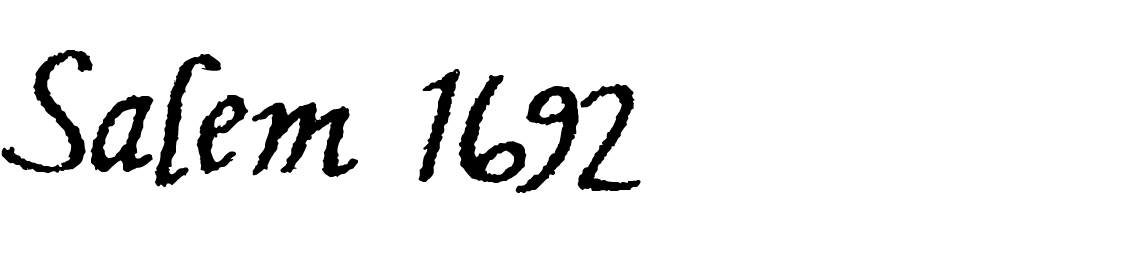
Ludicrously elongated ascenders characterize this font, taken from an eighth century parchment. One wonders what things may have been written down in this hand. While clearly legible, this font is best used as a headline or accent face.Astaroth WF View Character Set Try it!
Parallel to the development of book hands, the chancellories and scriptoria of France developed a handwriting that was easy to write and well adapted to the needs of a growing world trade.
The best features of several handwriting styles were combined, the resulting mix was known as Bastarda. Together with the printed Gothic Textura, it formed the basis of the later German Fraktur typefaces.Bastarda WF View Character Set Try it!
Illuminated manuscripts of the 10th century furnished this odd set of capitals, which appear to be bizarre ink blotches more than anything else. Yet this was someone’s artful handwriting a thousand years ago. We recommend this font for headlines.Batwynge WF View Character Set Try it!
Here we have a gnarled and twisted hand that was used on an actual spell, which which was found tucked under the beams of a 16th century house in southern Germany. The incantation was wrapped around a fossil belemnite (also known as a “thunderbolt”) Evidently this protected the house from getting hit by lightning. There are brown stains on the ancient parchment, which could be blood.Gnomos WF View Character Set Try it!
One of the famous monastic hands of France, we have seen several documents that bear tight lines of this beautiful, regular but strangely illegible writing. This is a good text face, although it certainly takes some getting used to.Luxeuil WF View Character Set Try it!
What other font conveys the notion of “Capital” letters better than this – it is clearly one of the most beautiful fonts we have seen. Originally this ceremonial hand was used on official documents.Orgeuil WF View Character Set Try it!
Runic writing was not an everyday affair, it was reserved for sacred or otherwise important purposes, and its practitioners were most likely learned or holy men. Because each rune has not only a sound value, but also a name (such as “aurochs” “hail” and “god”), a runic message can bear a double meaning, which makes the deciphering of runic inscriptions more of an interpretation than a translation.Runor WF View Character Set Try it!
While in Europe the witch craze was already dying down, in Salem, Massachusetts it just got started. Based on “spectral evidence” and hearsay, 19 people were convicted and executed as witches. When the fanatic prosecutors finally accused the wife of the Governor, they had gone too far – the legislature took decided measures and the witch hysteria died down almost as quickly as it had arisen. “Salem 1692” is based on the hands used in the official court records of the time.Salem 1692 WF View Character Set Try it!
Alchemy is much more than trying to turn lead into gold - it is the study of all things, and as such, there are alchemical treatises on a great variety of subjects, from botany and zoology to philosophy and chemistry.  Our font gives you the alchemic chart of elements, so that you, too, may discover the philospher’s stone. Please let us know when you do.Alchemy Symbols WF View Character Set Try it!
Throughout the centuries, the movements of the heavens were supposed to influence our fate. Working out horoscopes was in fact the bread-and-butter occupation of such great astronomers as Kepler, Galilei and Kopernikus. An elaborate system of symbols was created to aid in the description of the stars and their movements. If you wish to try your hand at a astrology, you’ll need our Astrological Symbols font.Astrological Symbols WF View Character Set Try it!
Dark, sprawling, pathless forests of ancient old-growth trees. Gloomy, forlorn monasteries in remote places &endash; the outposts of civilization. Churches built on pagan places of worship, to better convert the heathen forest-dwellers. Christian religion mixed and married with old faiths. This is Central Europe before the first millennium. This is where spirits, ghosts and goblins are real. Powerful superstitions shape the minds of natives and missionaries alike, finding an outlet in their art and their writing. Writing that has come down to us in all its bizarre glory in beautiful, magical, strange manuscripts.